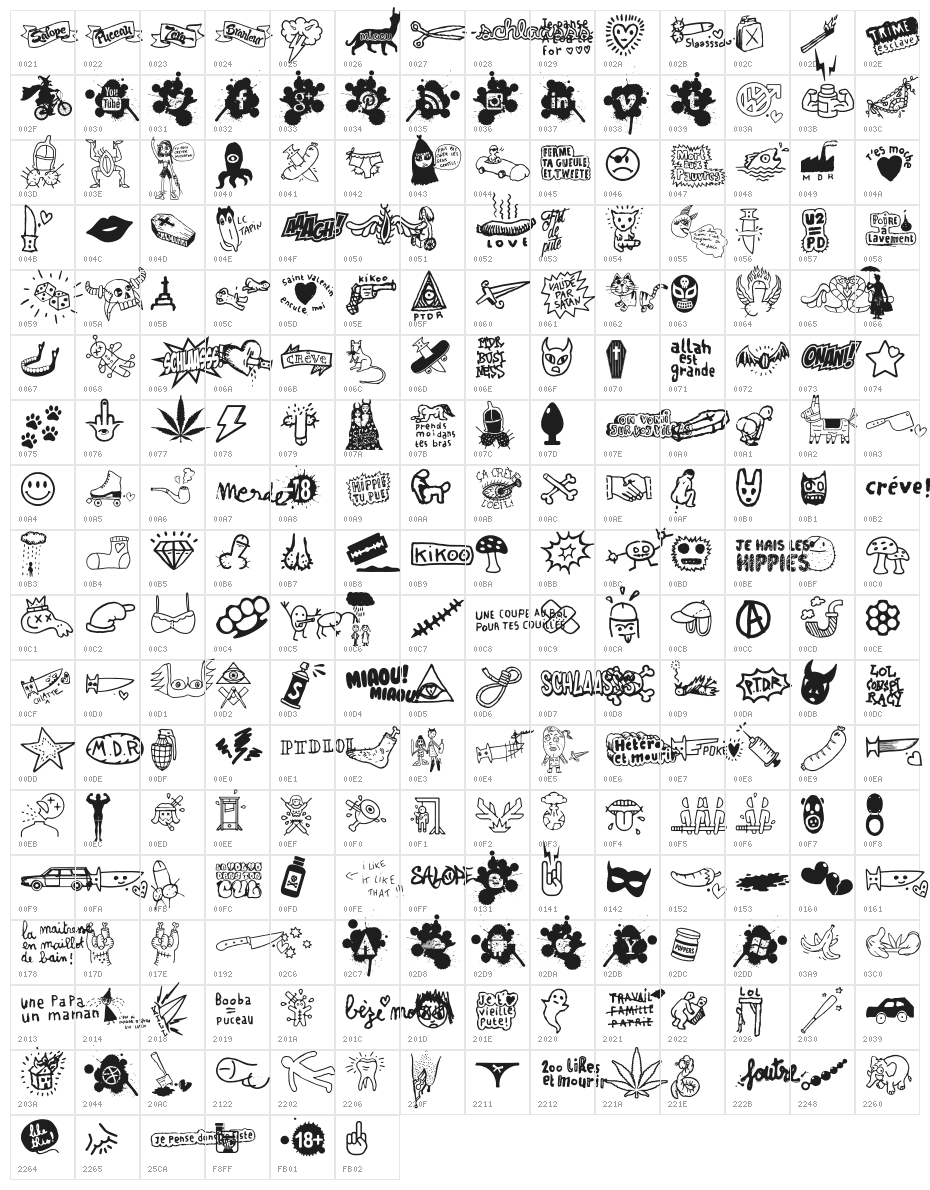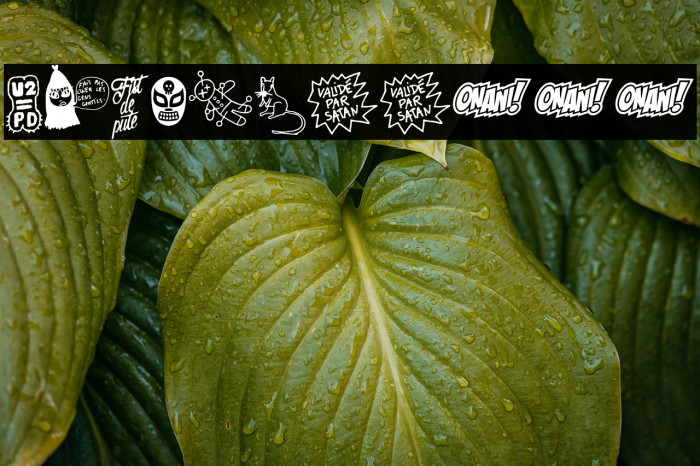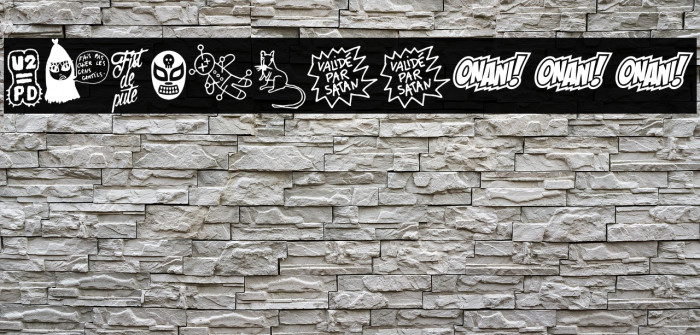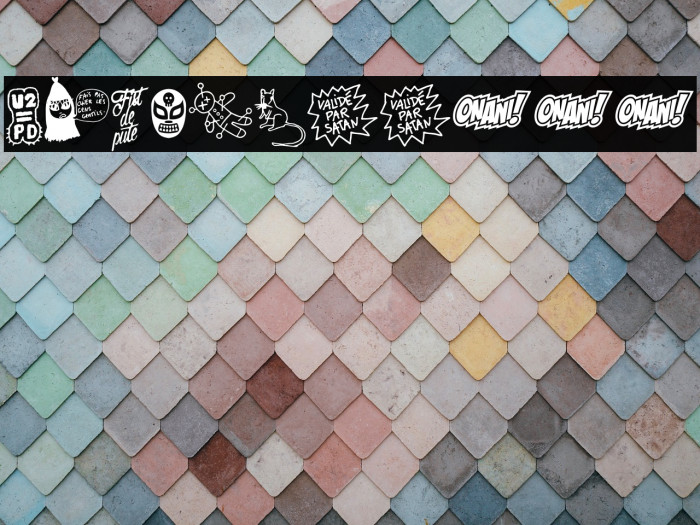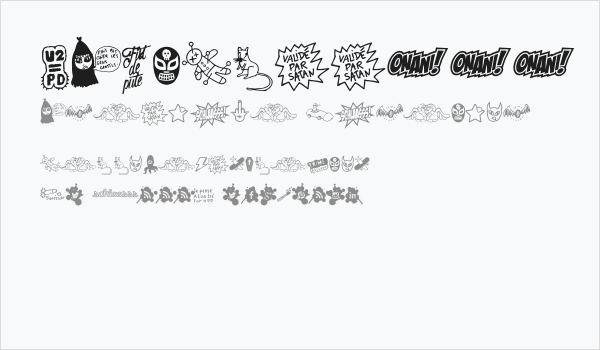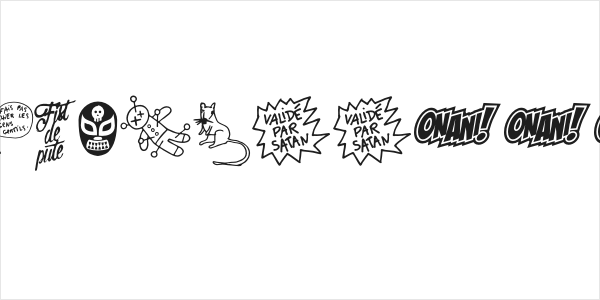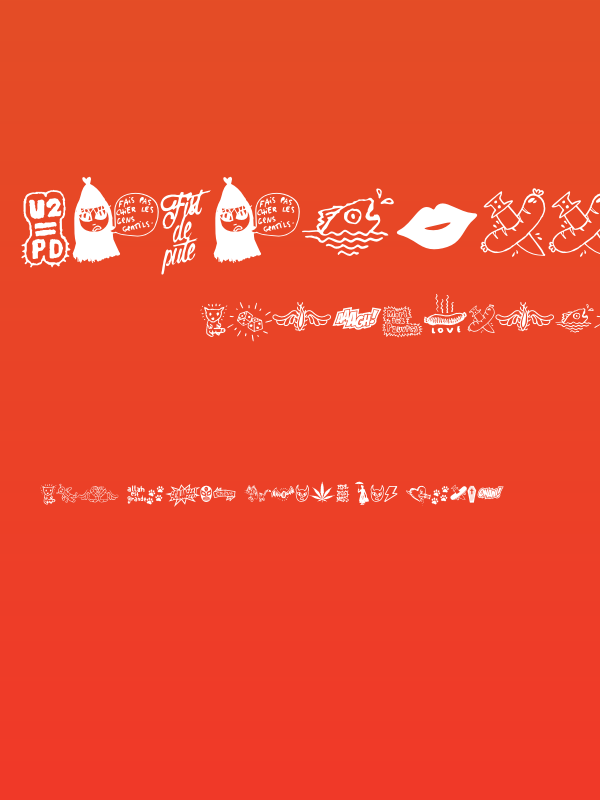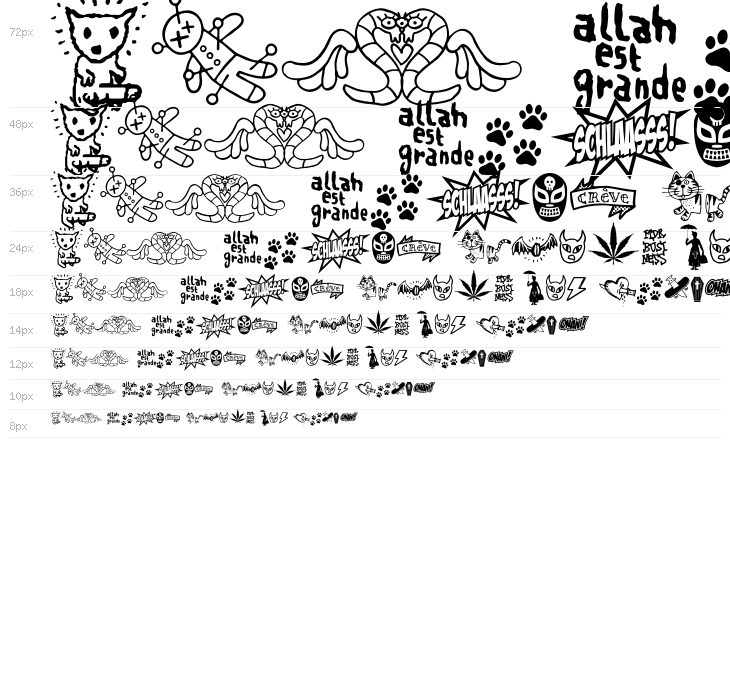
WCSchlaasss Font
WCSchlaasss Description
A highly decorative and eclectic dingbat font featuring a wide variety of hand-drawn illustrations, symbols, and comic-style graphics, including icons, speech bubbles, animals, social media logos, and expressive text elements. The style is playful, bold, and visually dynamic, with irregular line work and a graffiti-inspired aesthetic.
| Overall Style | Decorative, Comic, Graffiti, Playful |
| Use Case | Logos, Posters, Decorative elements, Social media graphics |
| Proposed Projects | Posters, stickers, zines, album covers, youth-oriented branding, social media graphics, comic strips. |